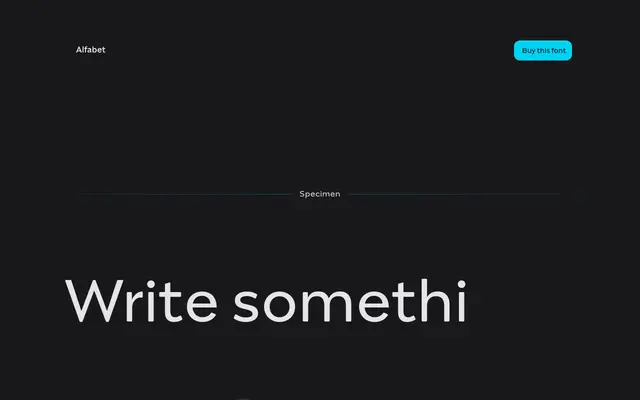
Alfabet
Capitalics · Mateusz Machalski
A geometric sans-serif spanning 10 weights with matching italics, designed for multiscript branding with Latin, Greek and Cyrillic support.
Built over three years by Mateusz Machalski of Capitalics, Alfabet draws on Swiss and German typographic thinking to produce a sans-serif with a clean, rational character. The full family runs across 10 weights from Hairline to Black, each with a matching italic, and covers Latin (including Vietnamese), Greek and Cyrillic scripts with localised forms for Ukrainian, Bulgarian and Serbian. Beyond the broad character set, the family includes alternates, superscript, subscript, ligatures, an arrows set and seven styles of numerals.
Designed with an explicit geometric and rational character inspired by Swiss and German typographic tradition, placing it squarely in the geometric sans-serif subcategory.